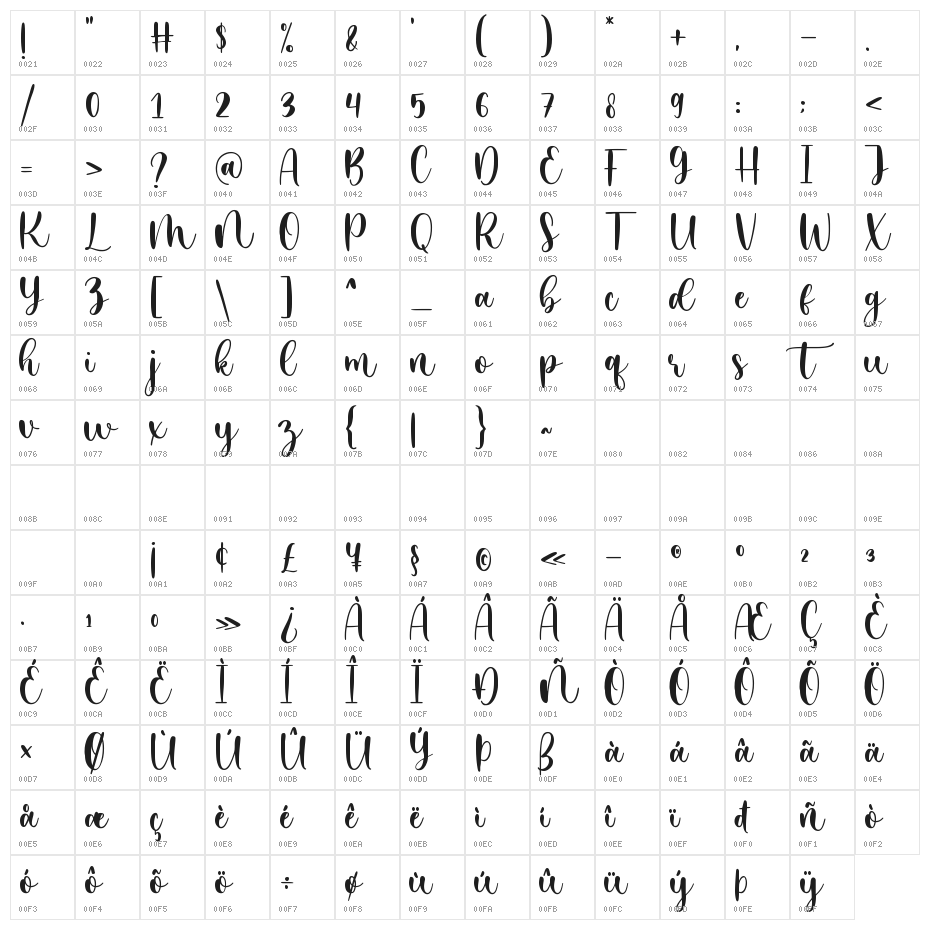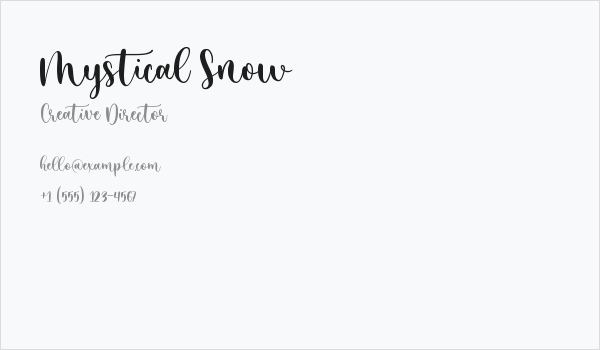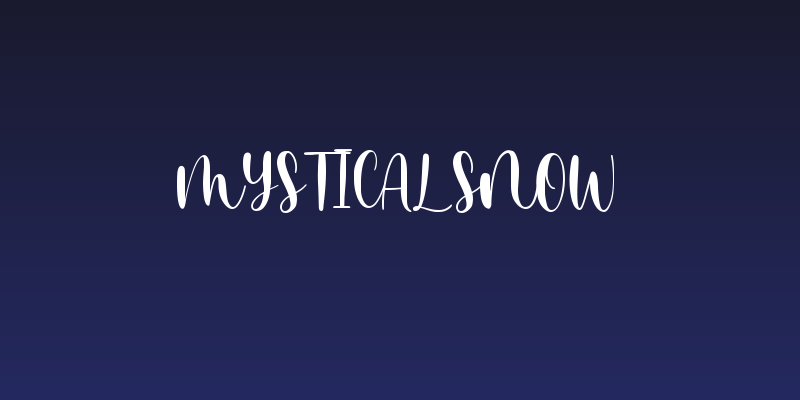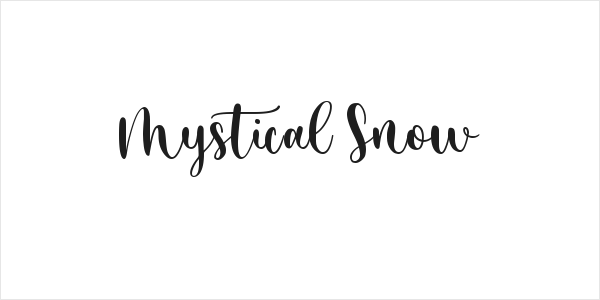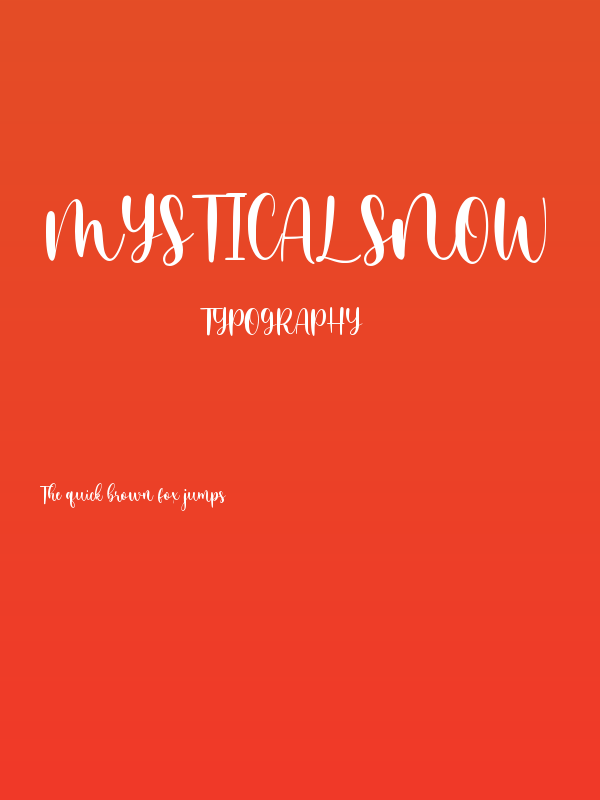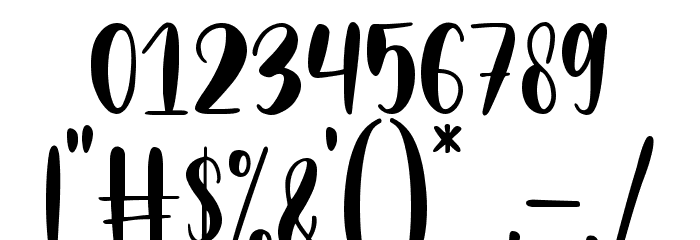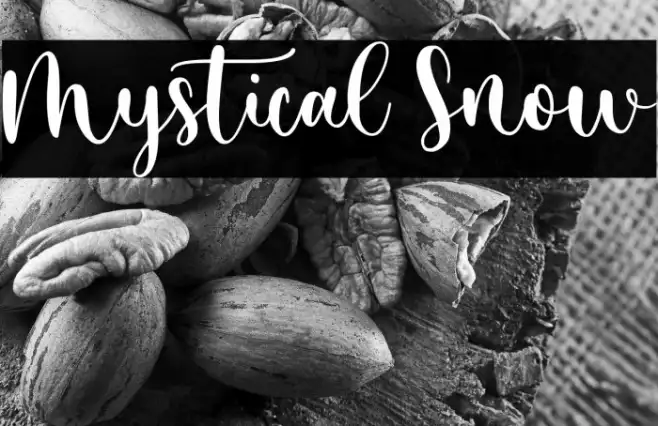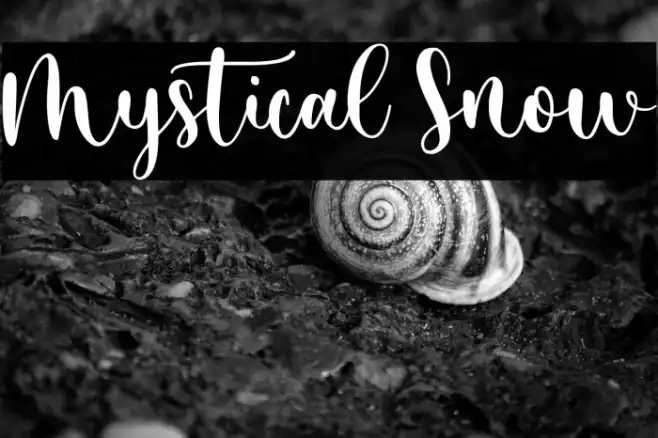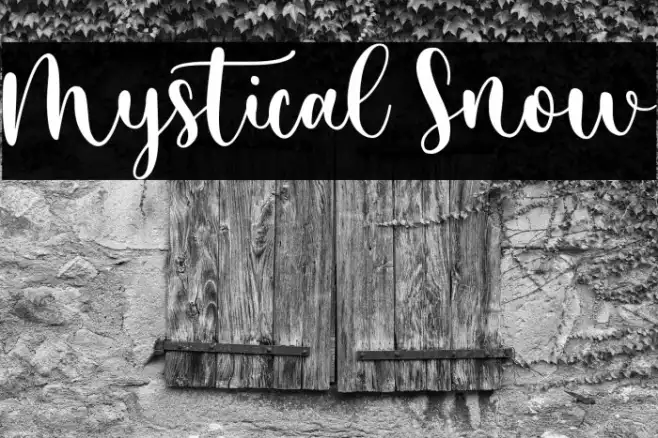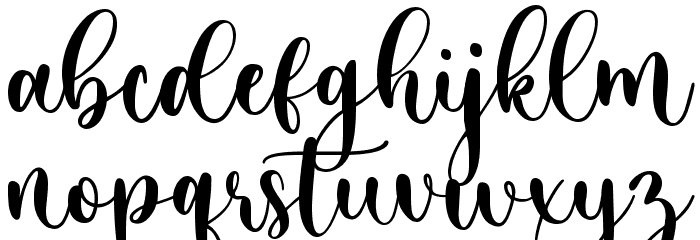
Mystical Snow Font
Mystical Snow Description
This font exhibits a whimsical and flowing script style, characterized by its elegant and fluid strokes. The uppercase letters are bold and prominent, with a playful yet sophisticated flair. The lowercase letters maintain a consistent, cursive form that complements the uppercase, offering a harmonious balance. Numbers and special characters are designed with the same artistic touch, ensuring a cohesive look across all elements. The font's overall appearance is both charming and versatile, making it suitable for a variety of creative applications.